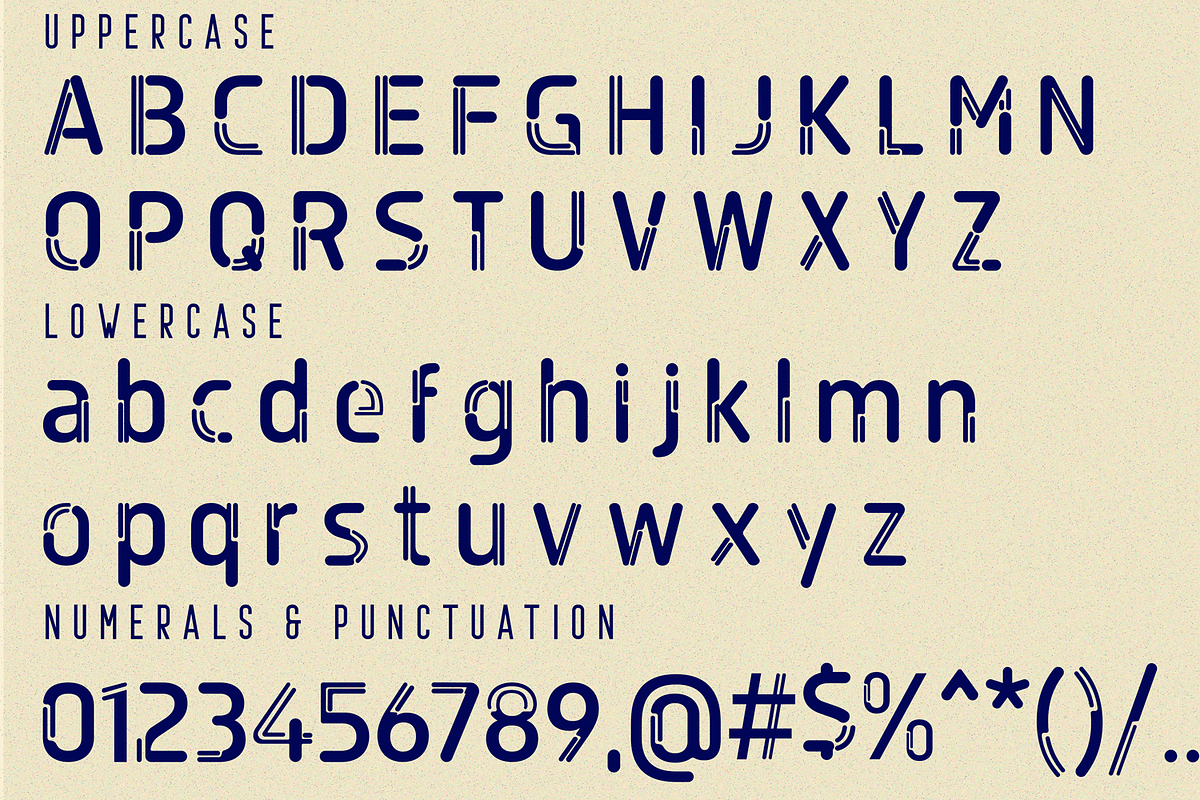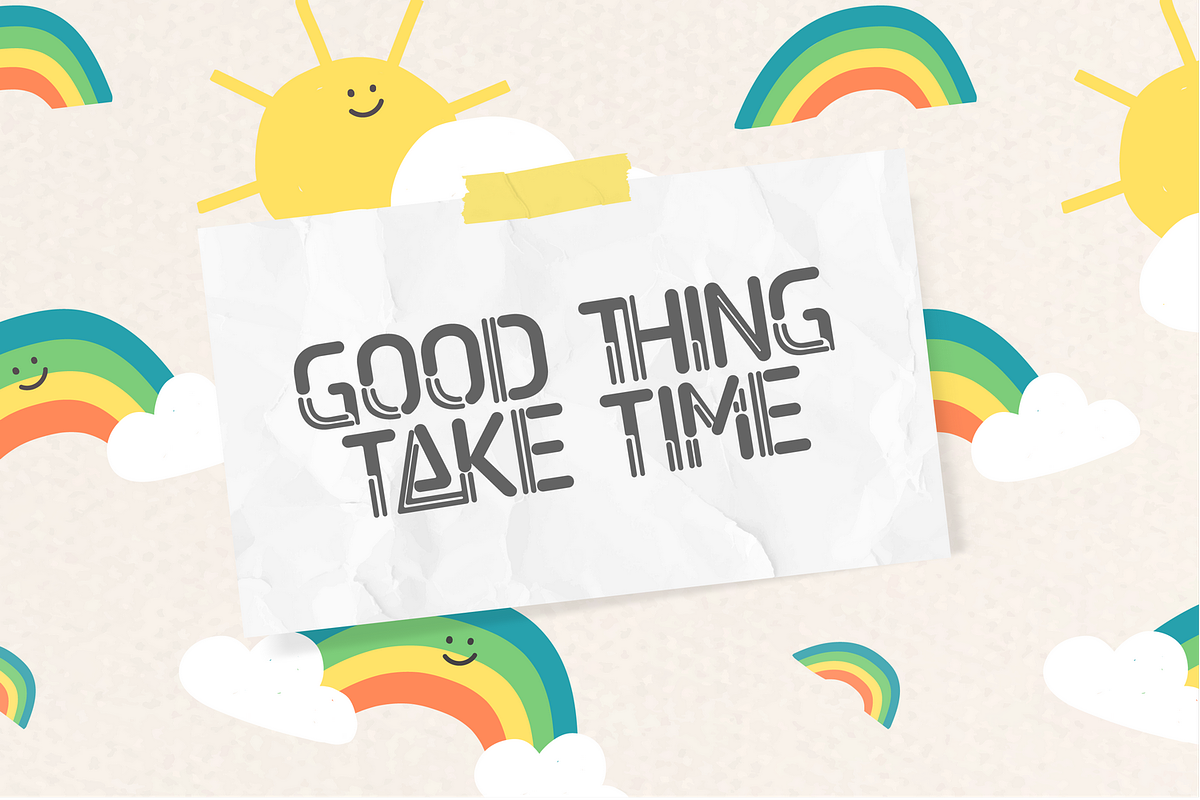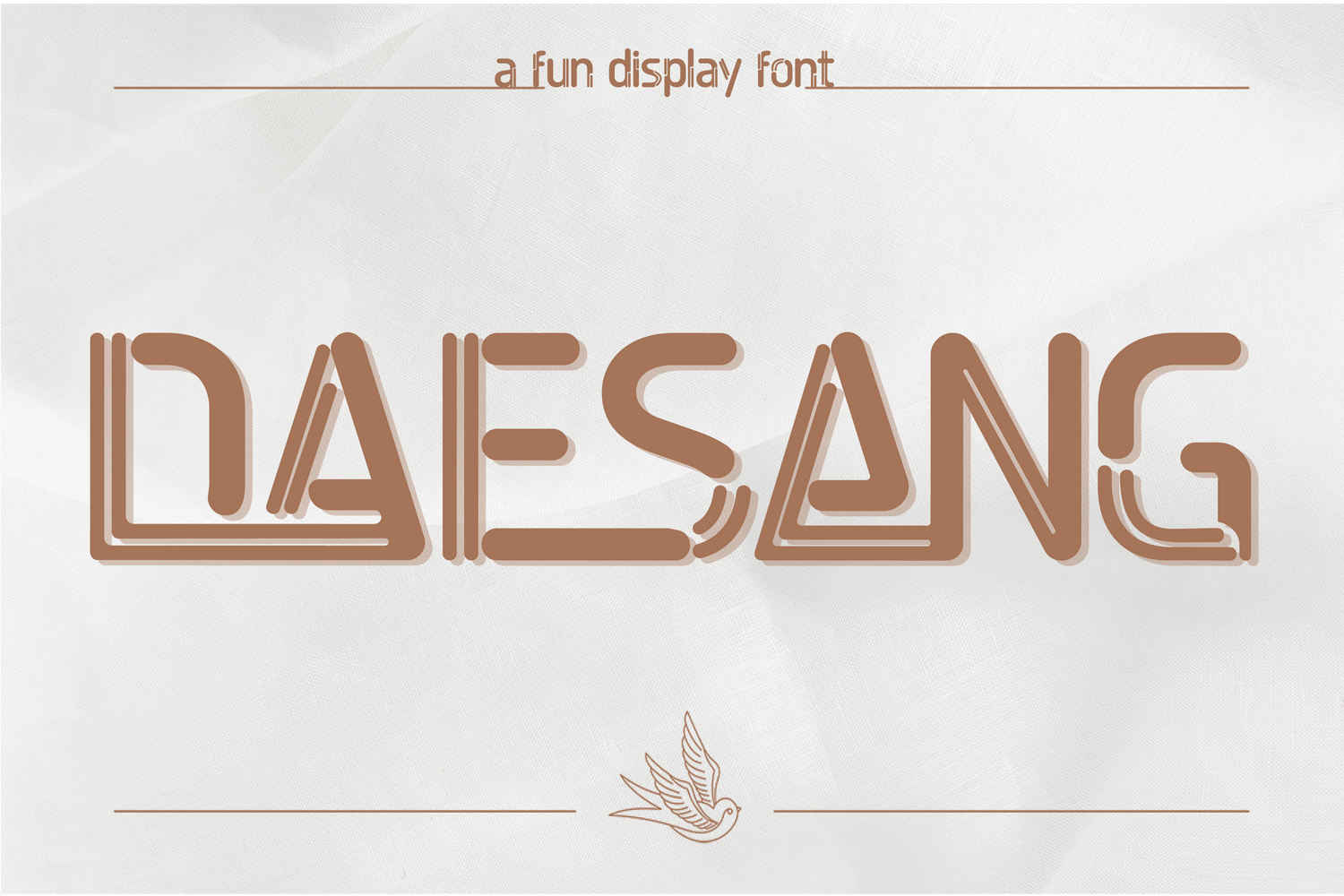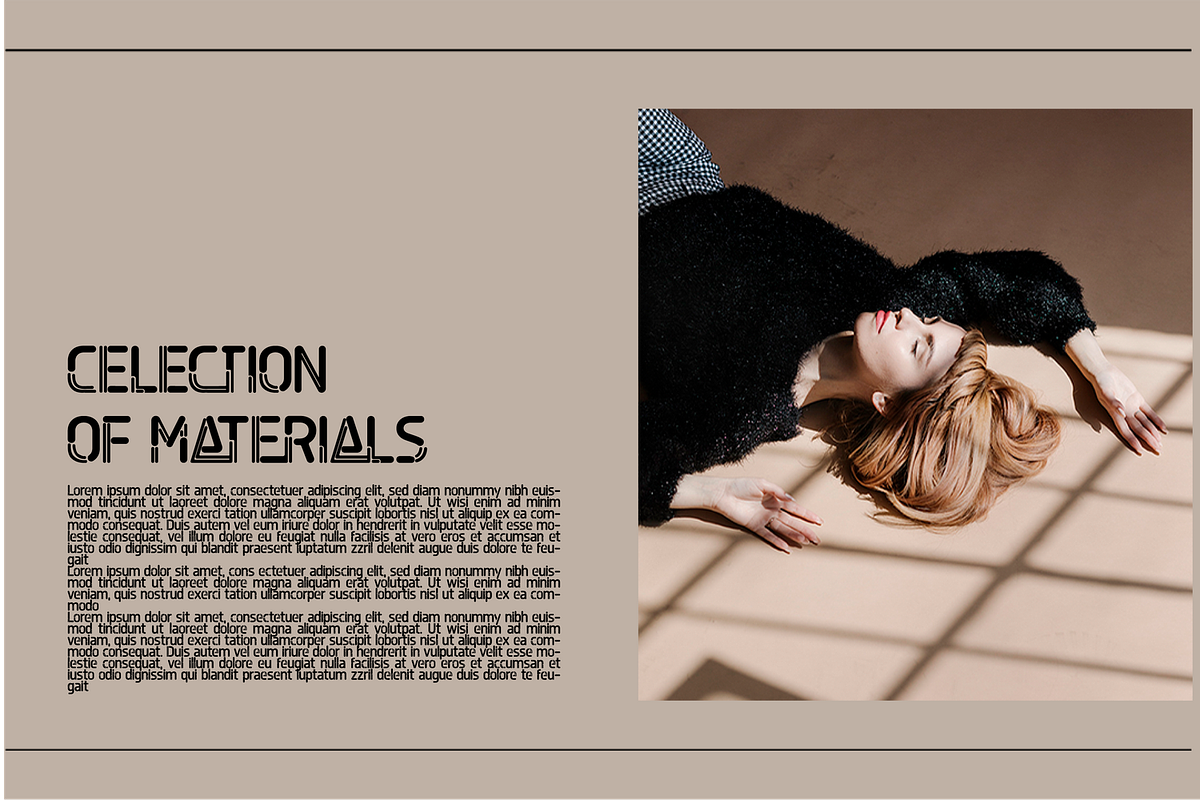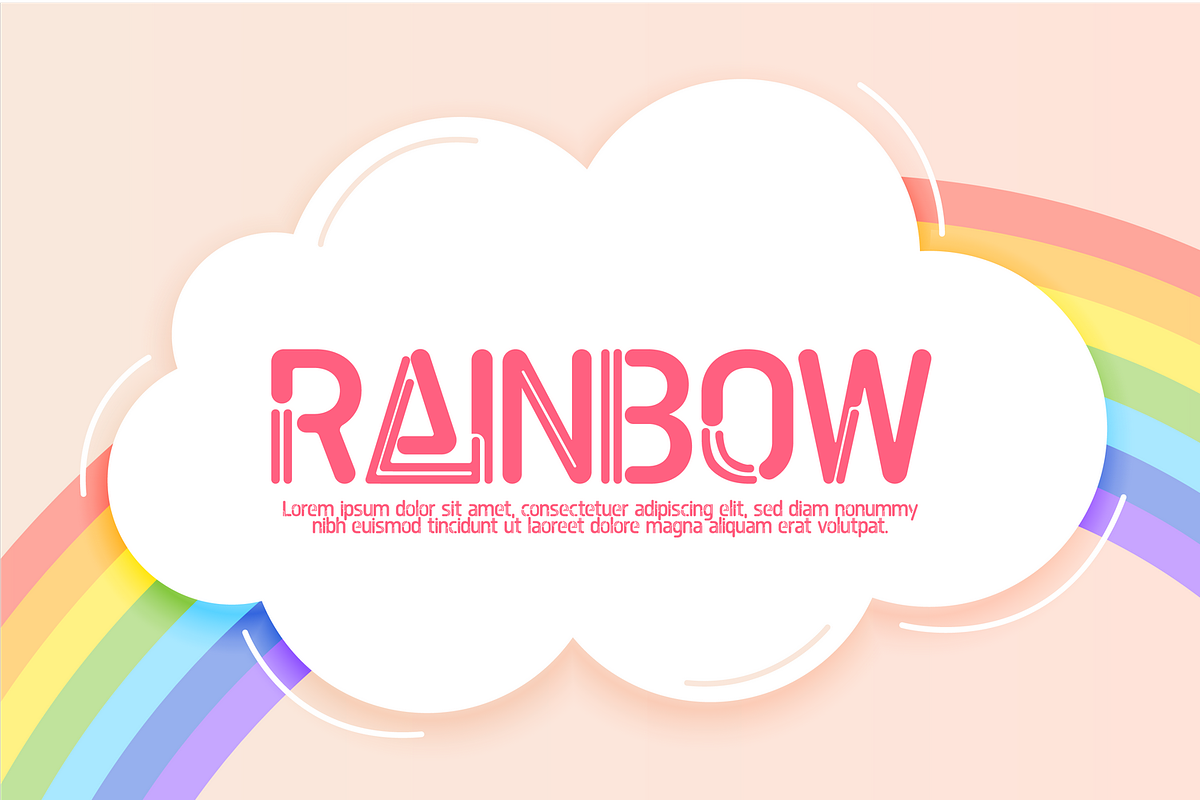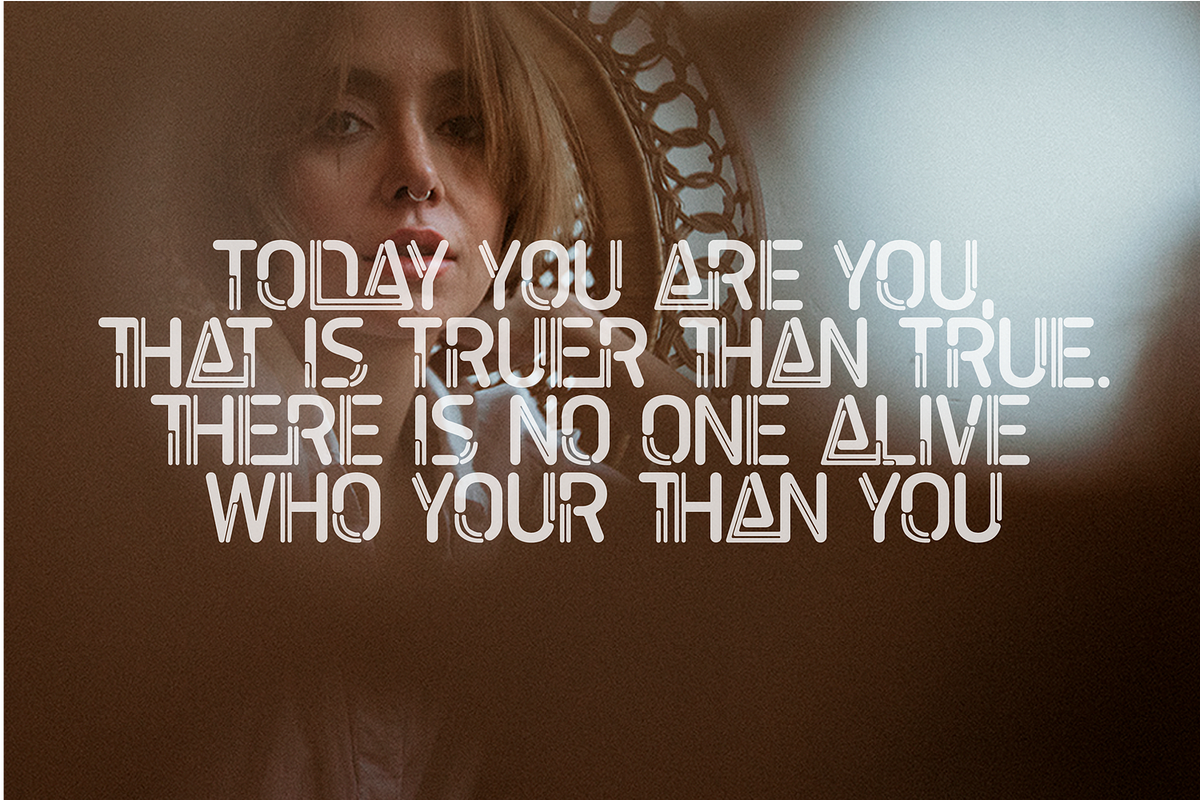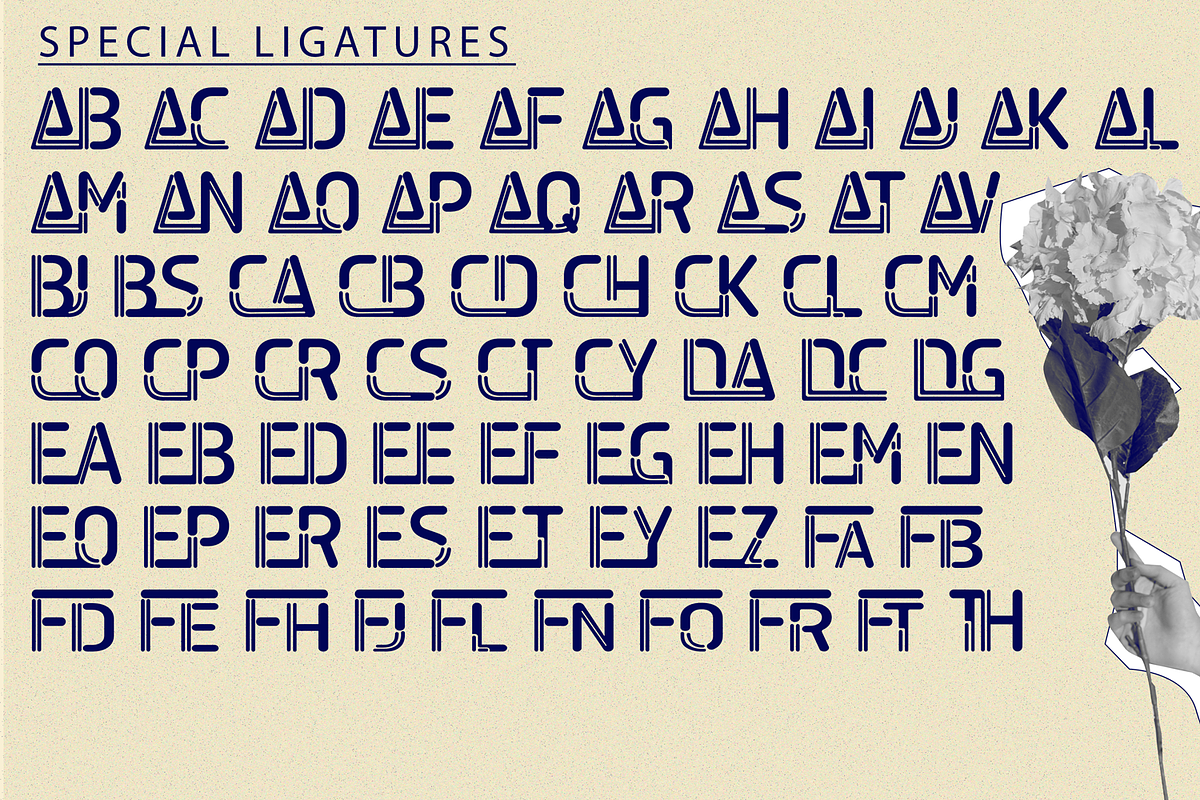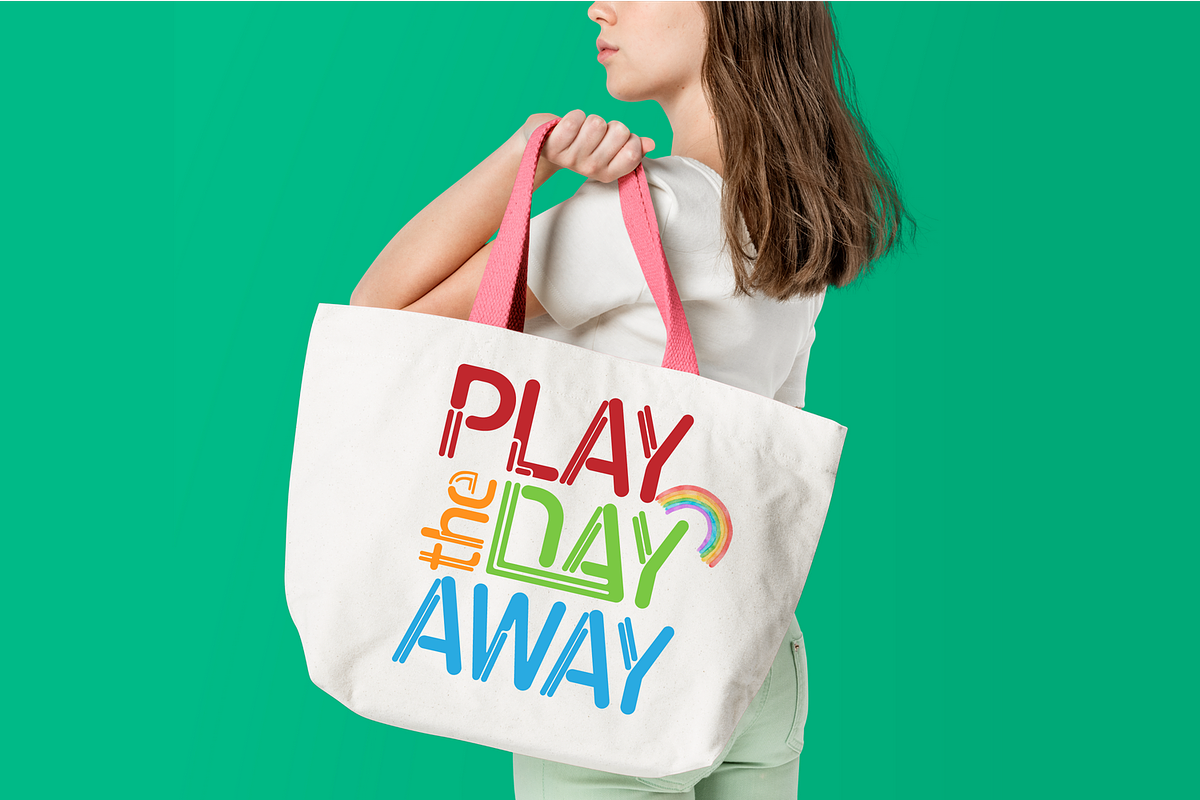
DAESANG SPACE FONT
DAESANG SPACE FONT is a futuristic font, space font & tech looking font. It’s thin and simple, but it’s strong and significant defined by its thin strokes and unique cuts. A rustic, minimal, printing-pressed font – for when you need something brave. It's perfect for your up coming projects. Such as logo branding, editorial design, sport design, game - gaming industry, music cover and poster, website design, modern advertising design, modern poster quote, book - magazine cover title, special events and any more.
To make it look more unique, here we prepared some ligatures:
AB AC AD AE AF AG AH AI AJ AK AL AM AN AO AP AQ AR AS AT AV BJ BS CA CB CD CH CK CL CM CO CP CR CS CT CY DA DC DG EA EB ED EE EF EG EH EM EN EO EP ER ES ET EY EZ FA FB FD FE FH FJ FL FN FO FR FT TH